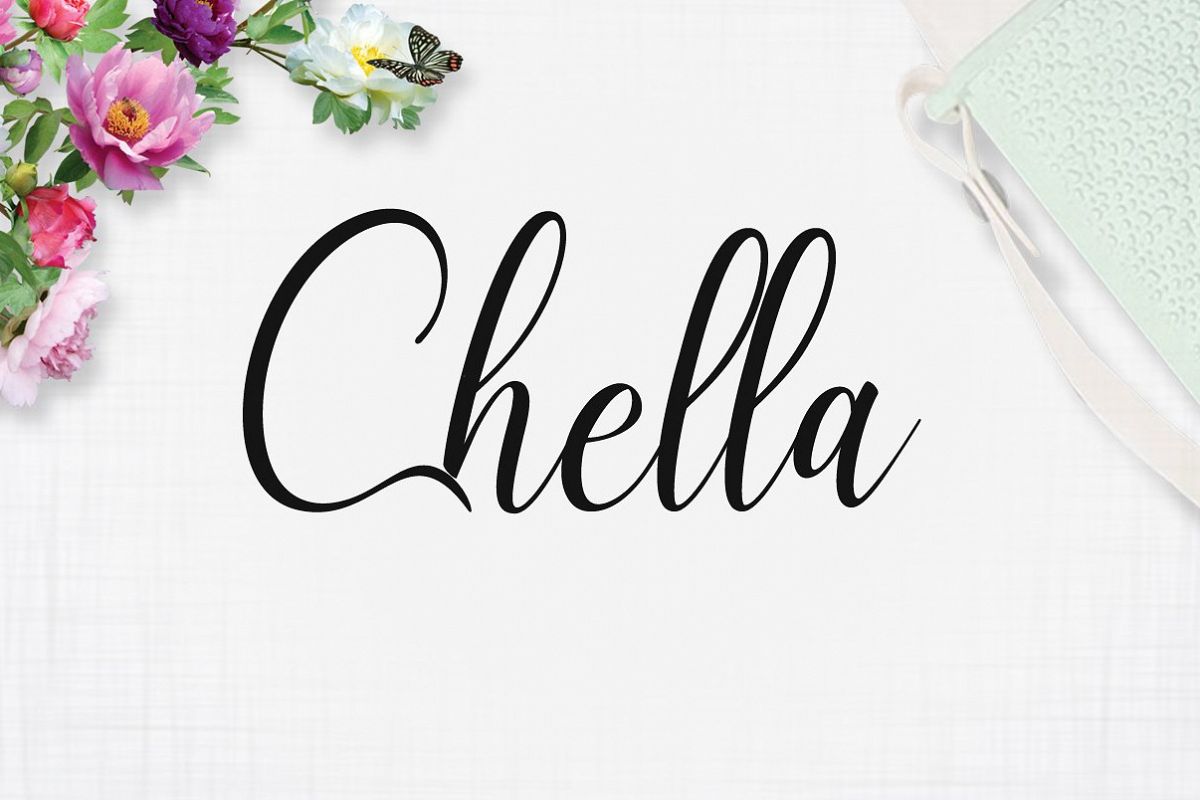
Chella
Chella - modern script font with a calligraphic style handmade very attractive, with beautiful characters and letters that can be used for the purpose. Like the title, invitations, menus, logos, t-sshirt, letterhead, labels, magazines, books, etc.